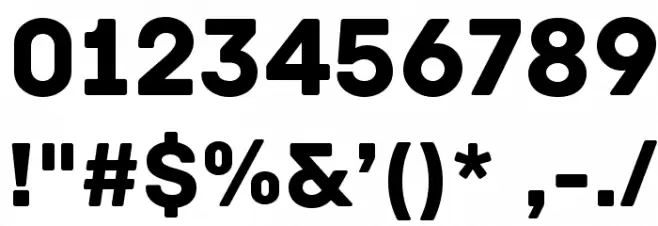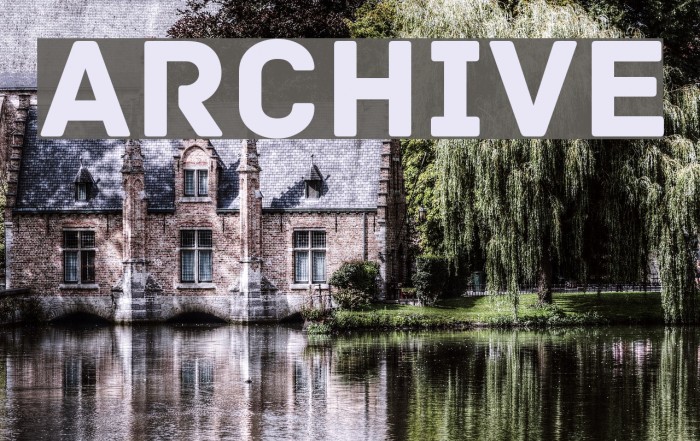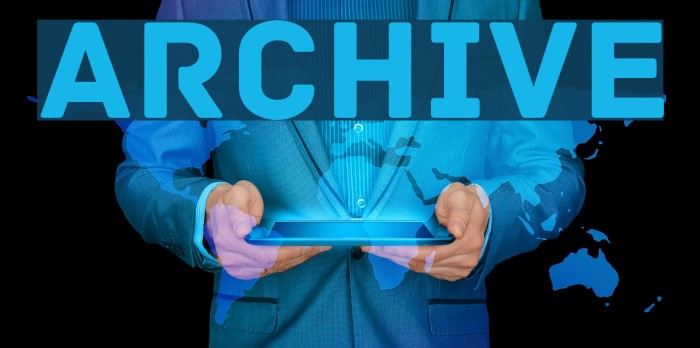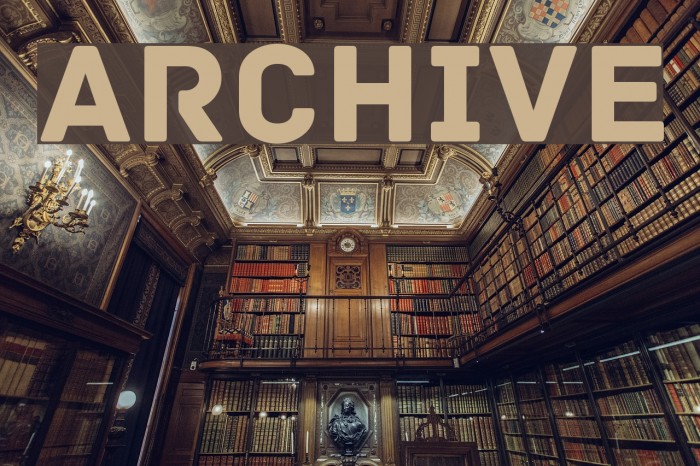
Archive Font
Archive Description
This font features bold, geometric letterforms with a strong presence. The characters are uniformly thick, providing a consistent and powerful look. The uppercase and lowercase letters maintain a similar width, enhancing readability and balance. The numerals are clear and distinct, matching the boldness of the alphabet. Special characters are well-integrated, offering versatility for various design needs. The overall style is modern and impactful, making it suitable for attention-grabbing headlines and branding projects.
A bold, geometric font with strong, consistent letterforms from Uncategorized fonts.
- Proposed Projects: Ideal for branding, headlines, posters, and advertising materials where a strong visual impact is needed.